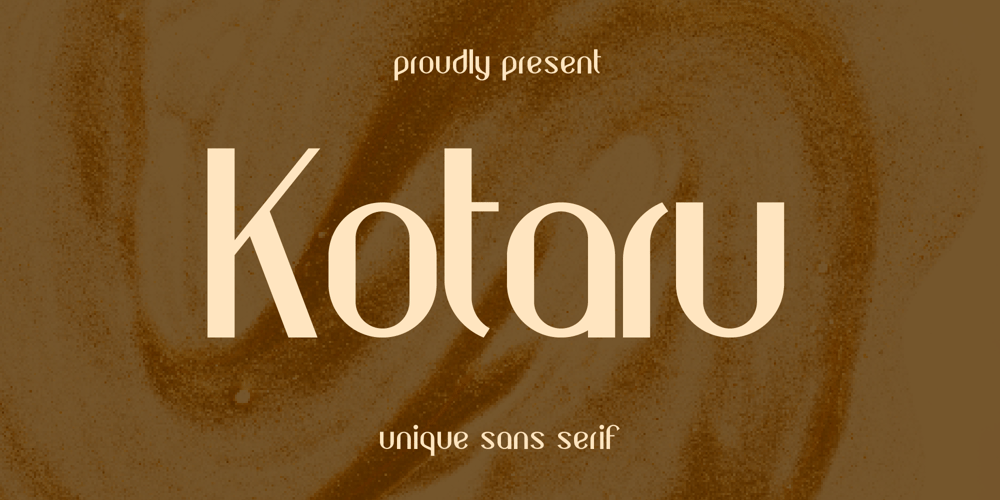
Kotaru Font Family was designed by Iwan Alwan and published by Artiveko. Kotaru contains 2 styles and family package options. Kotaru, a sleek minimalist sans serif font designed by Iwan Alwan.With its clean lines and elegant curves, Kotaru exudes modern sophistication. This font is meticulously crafted with ligatures, alternates, and comprehensive multilingual support, ensuring versatility across various design projects.Perfectly tailored for businesses with a feminine aesthetic.Kotaru adds a touch of grace and refinement to any branding or creative endeavor. Whether used for logos, branding materials, or editorial designs, Kotaru effortlessly captures attention and elevates the visual appeal of your projects. Unlock the potential of your designs with Kotaru—a font that seamlessly blends style and functionality.